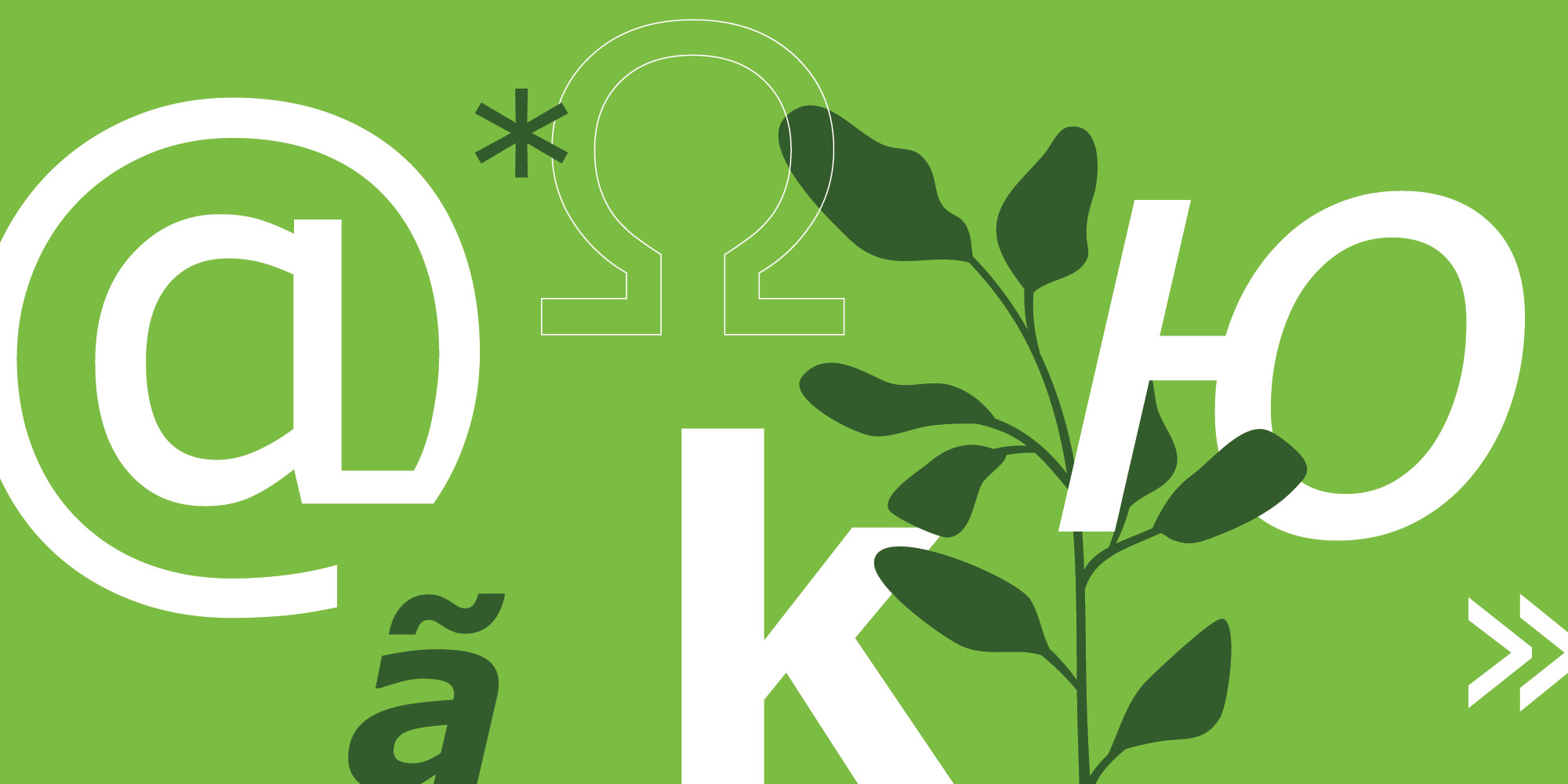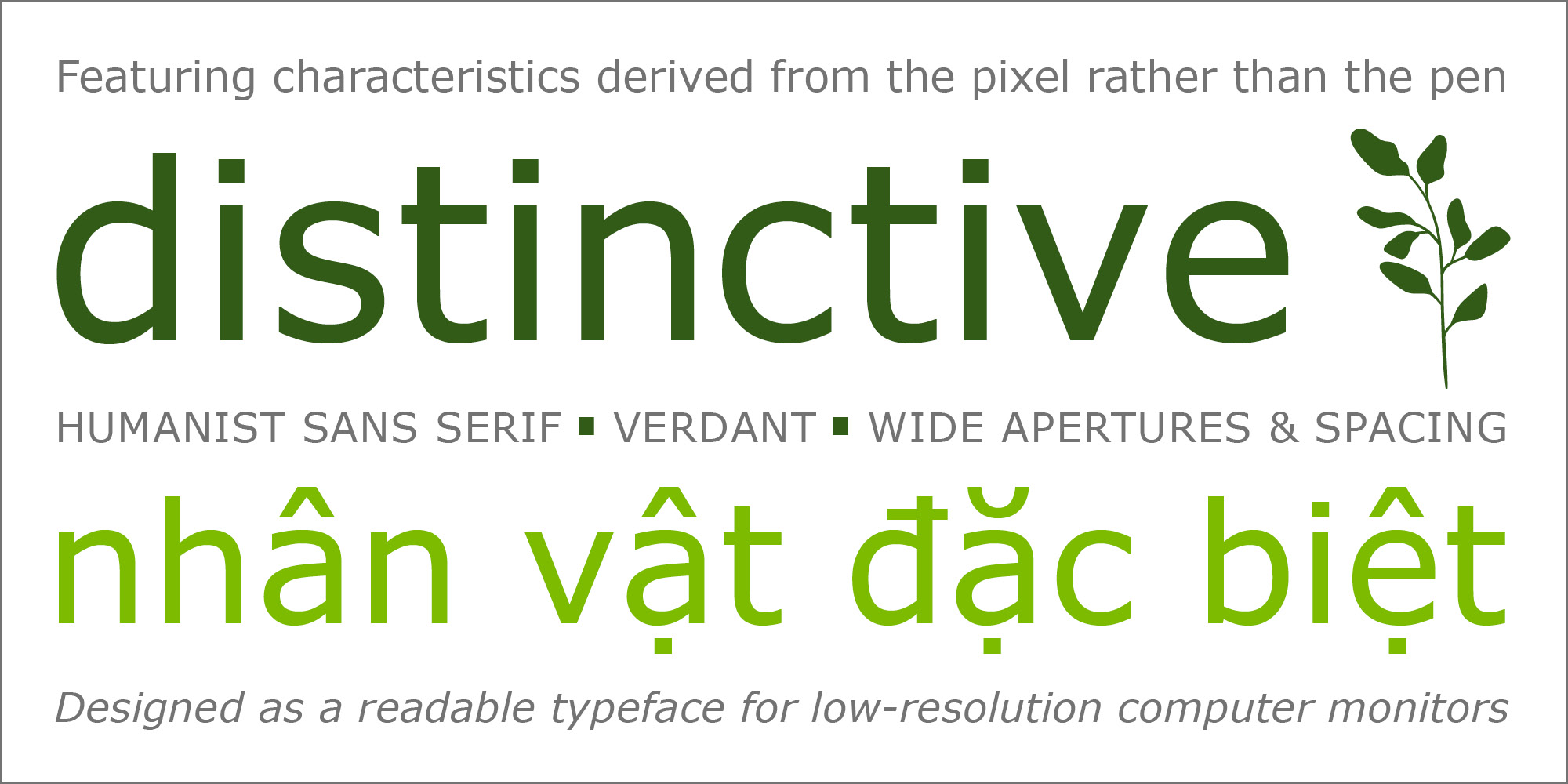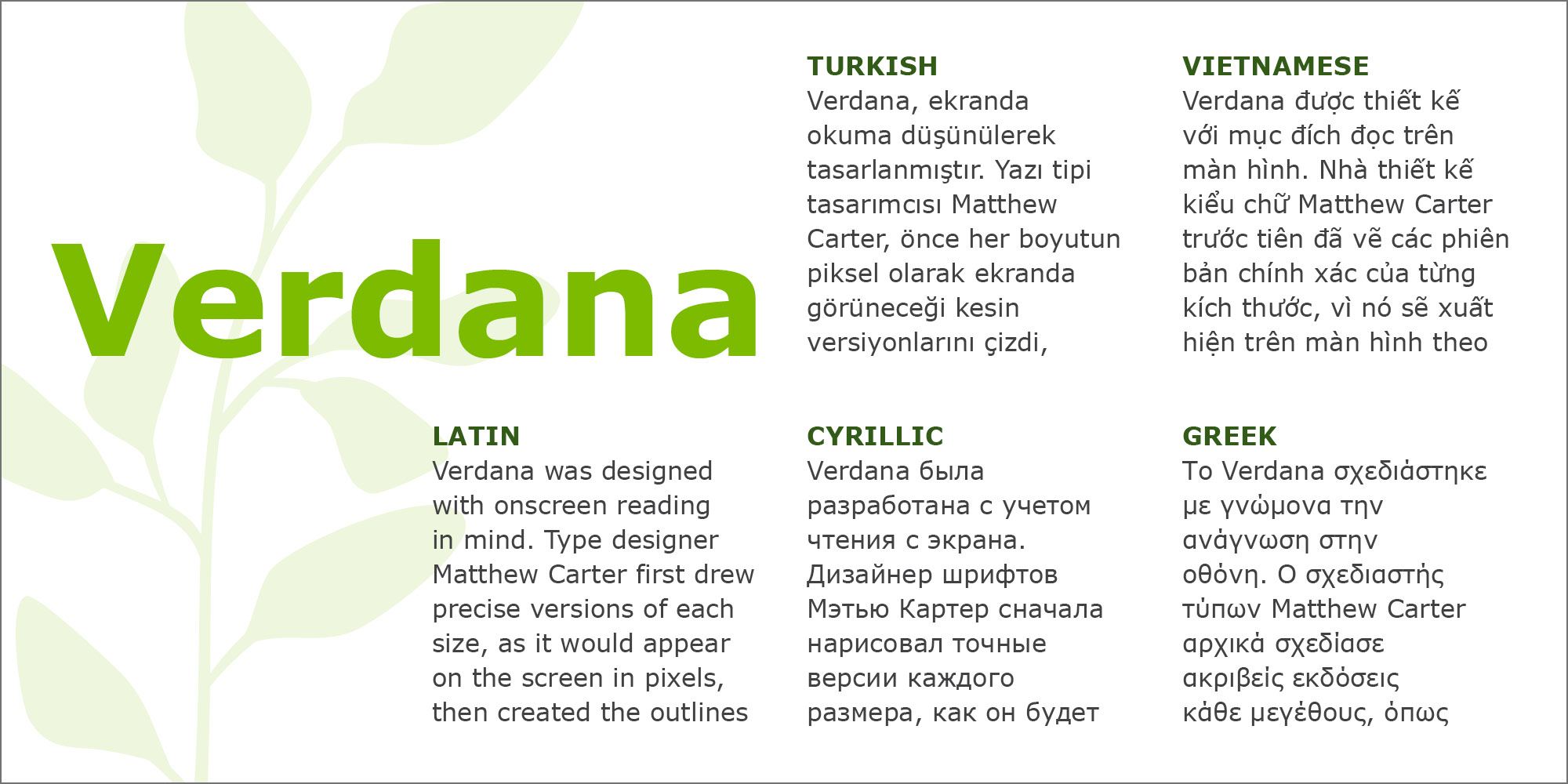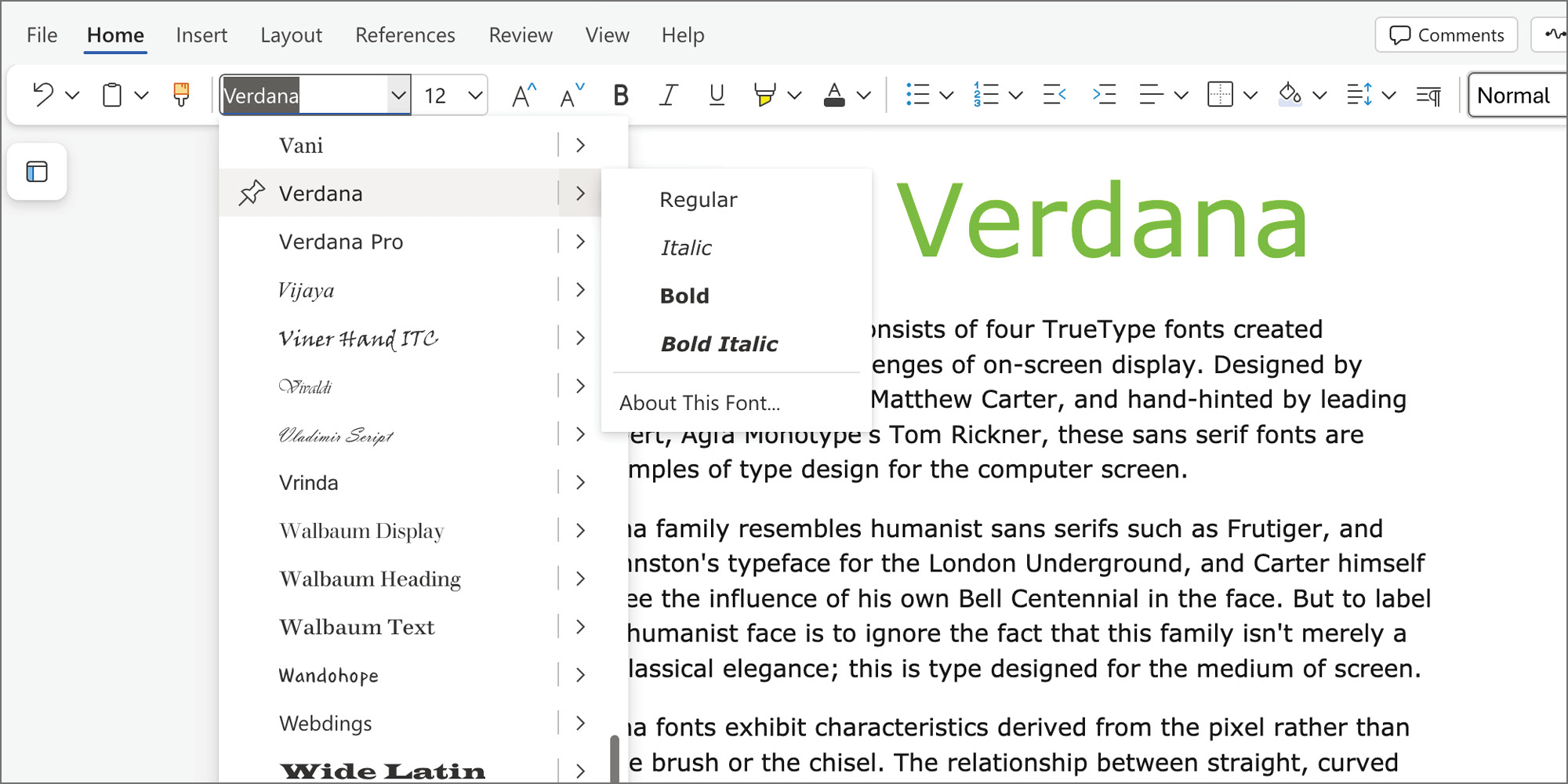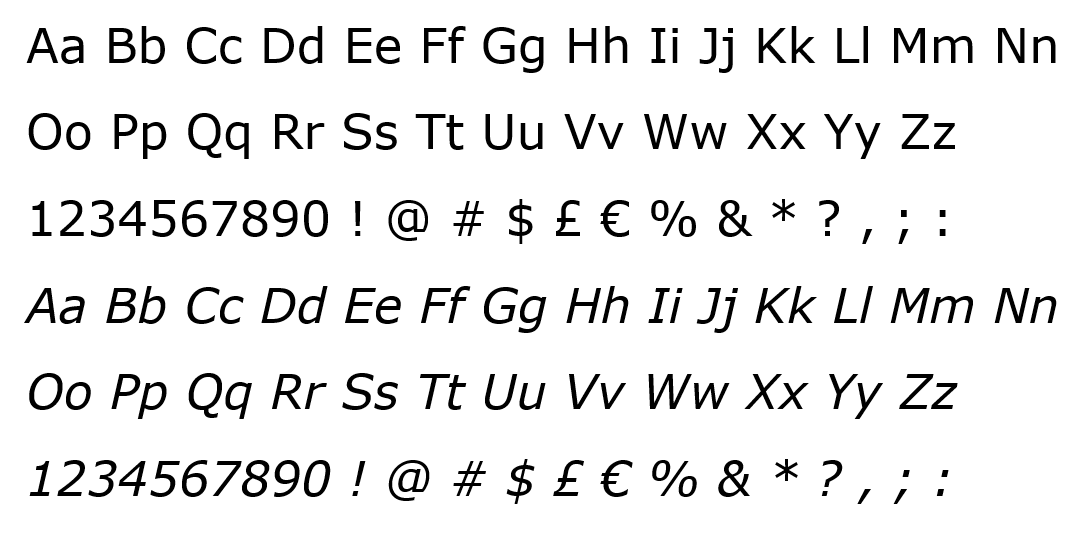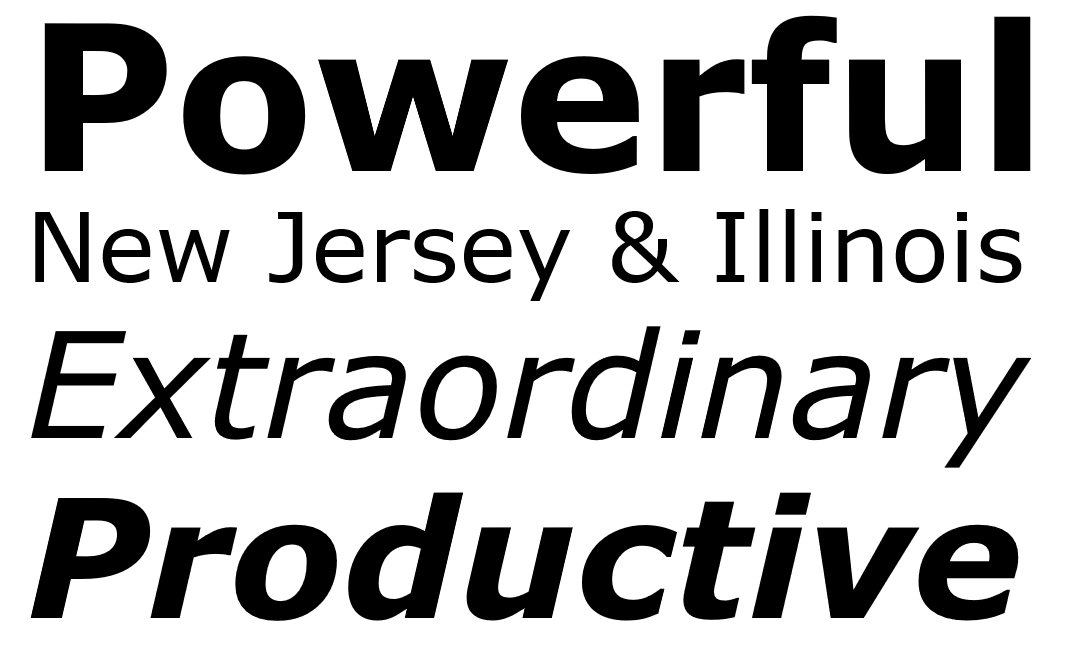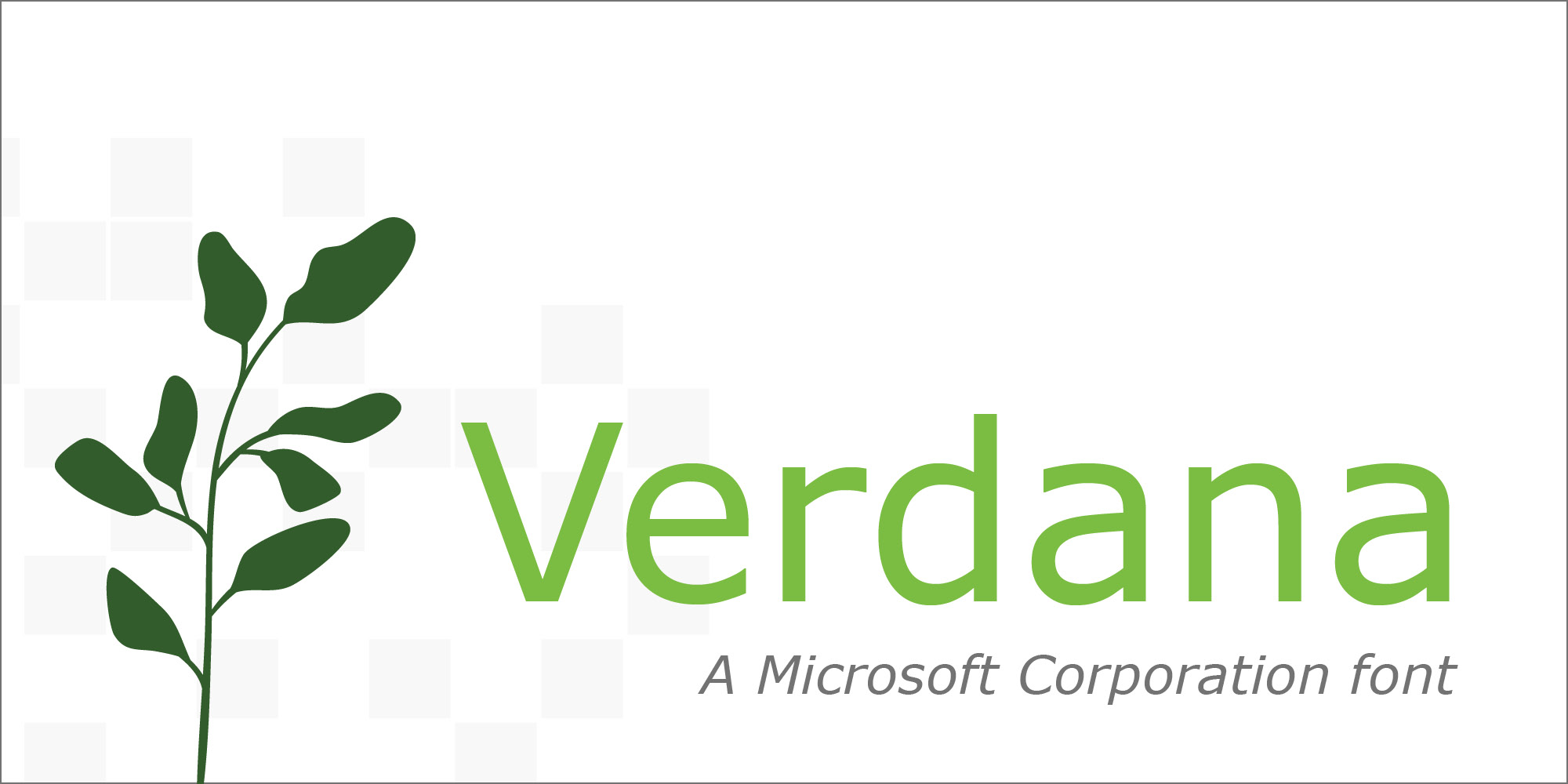
The Verdana typeface family consists of four TrueType fonts created specifically to address the challenges of on-screen display. Designed by world renowned type designer Matthew Carter, and hand-hinted by leading hinting expert, Agfa Monotype's Tom Rickner, these sans serif fonts are unique examples of type design for the computer screen.
The Verdana family resembles humanist sans serifs such as Frutiger, and Edward Johnston's typeface for the London Underground, and Carter himself claims to see the influence of his own Bell Centennial in the face. But to label Verdana a humanist face is to ignore the fact that this family isn't merely a revival of classical elegance; this is type designed for the medium of screen.
The Verdana fonts exhibit characteristics derived from the pixel rather than the pen, the brush or the chisel. The relationship between straight, curved and diagonal strokes has been painstakingly developed to ensure that the pixel patterns at small sizes are pleasing, clear and legible. Commonly confused characters, such as the lowercase i j l, the uppercase I J L and the numeral 1 have been carefully drawn for maximum distinctiveness - an important characteristic of fonts designed for on-screen use. And the various weights in the typeface family have been designed to create sufficient contrast from one another ensuring, for example, that the bold font is heavy enough even at sizes as small as 8 ppem.
The generous width and spacing of Verdana's characters is key to the legibility of these fonts on the screen. The limited number of pixels available at low resolutions means that tightly set characters can easily clash; turning an r n into an m, or creating distracting black patches in a word. In on-screen typography, it's important to keep the characters distinct from one another, and research has shown that wider letterspacing significantly aids reading from the screen.
The Verdana typeface family was first made available on July 8, 1996. The family is continually being extended to support multilingual needs.
Despite the quality of the Verdana font family at small sizes it is at higher resolutions that the fonts are best appreciated. Some of the subtleties of the letterforms, such as the slightly modulated stroke weight only become truly apparent at larger sizes. In the words of Tom Rickner, "My hope now is that these faces will be enjoyed beyond just the computer screen. Although the screen size bitmaps were the most crucial in the production of these fonts [their] uses should not be limited to on screen typography."
Version 2.31 - Verdana version 2.31 extends the WGL4 version 2.00 to include the euro currency symbol and Vietnamese language support.